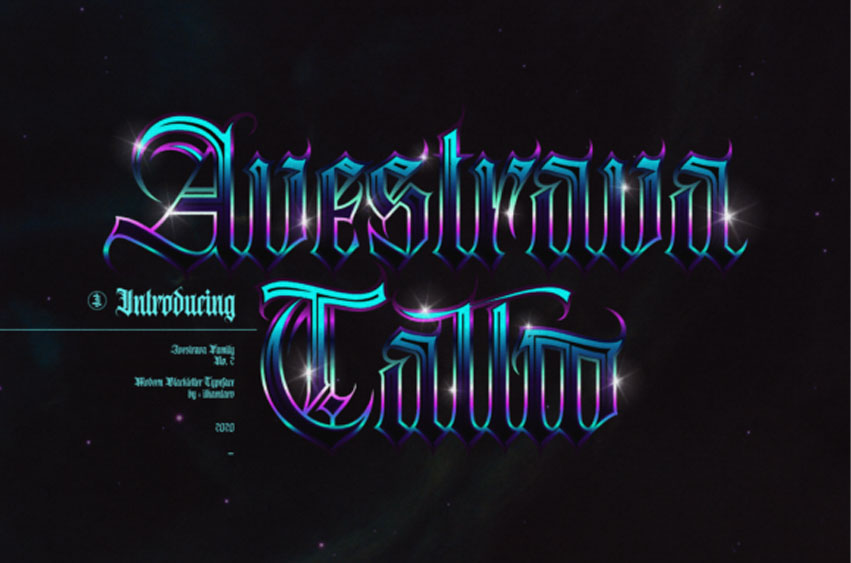
Avestrava Tattoo Font
Avestrava Tattoo Font features a gorgeous tattoo style with a gothic feel.
Use it to take any design project to the next level!